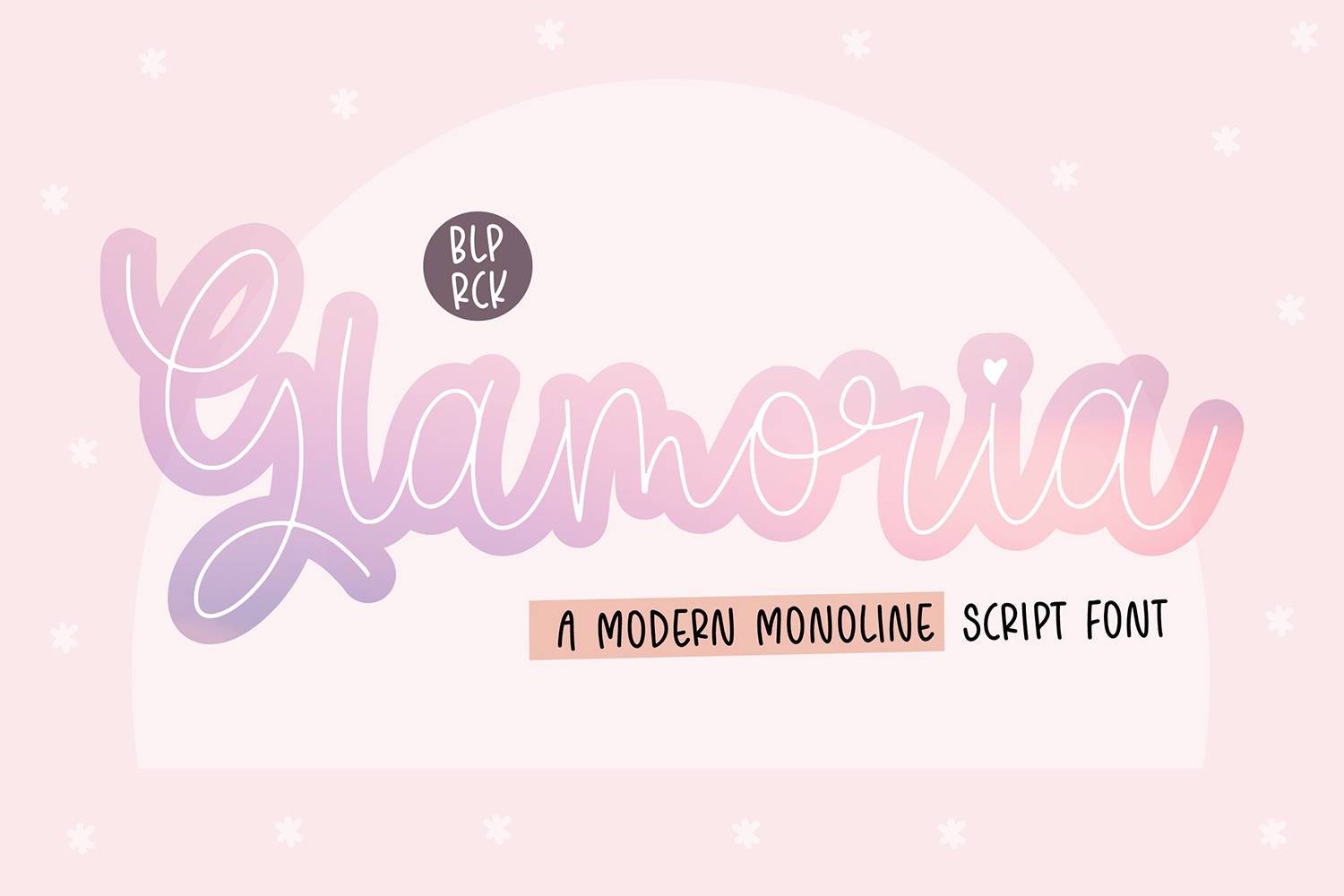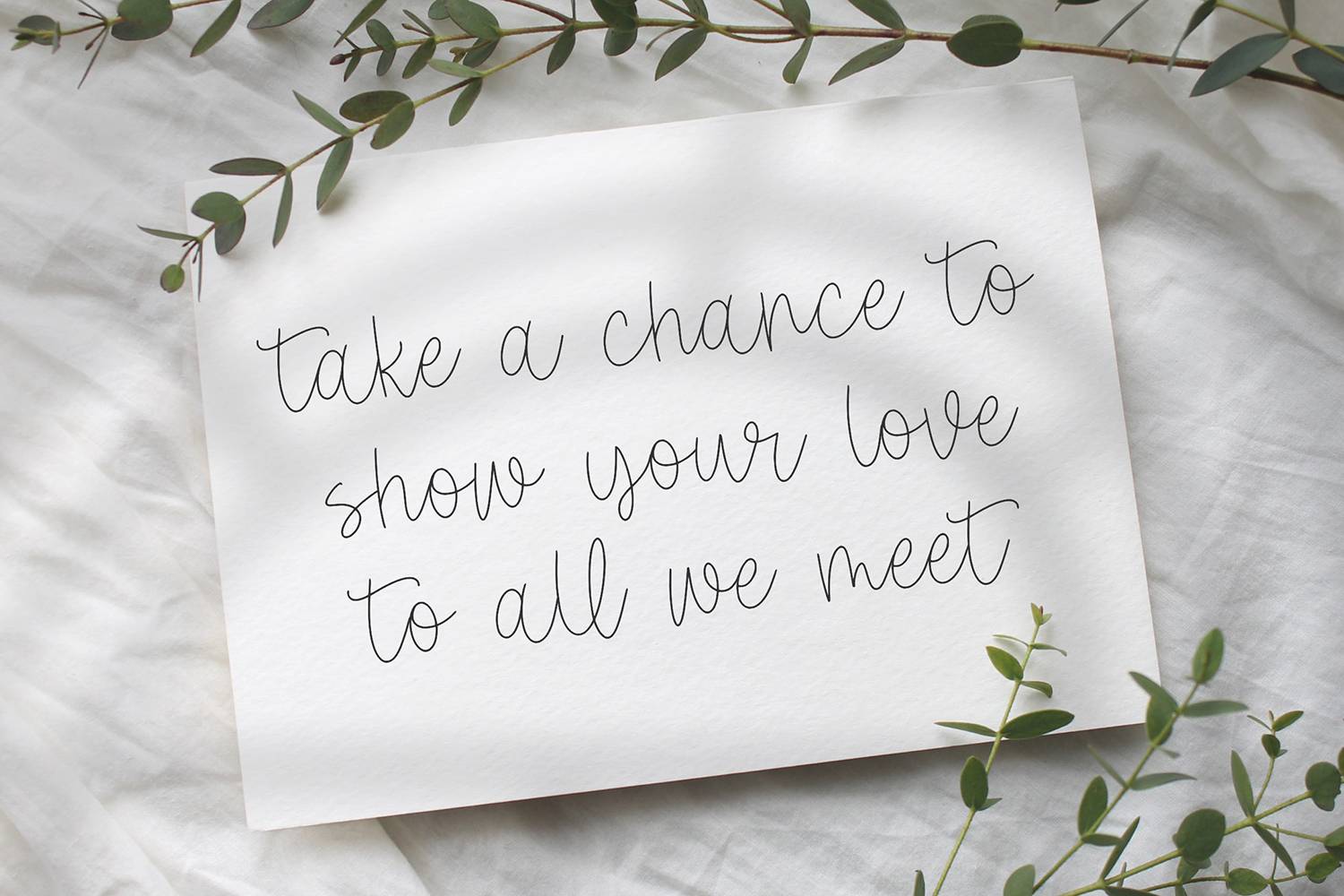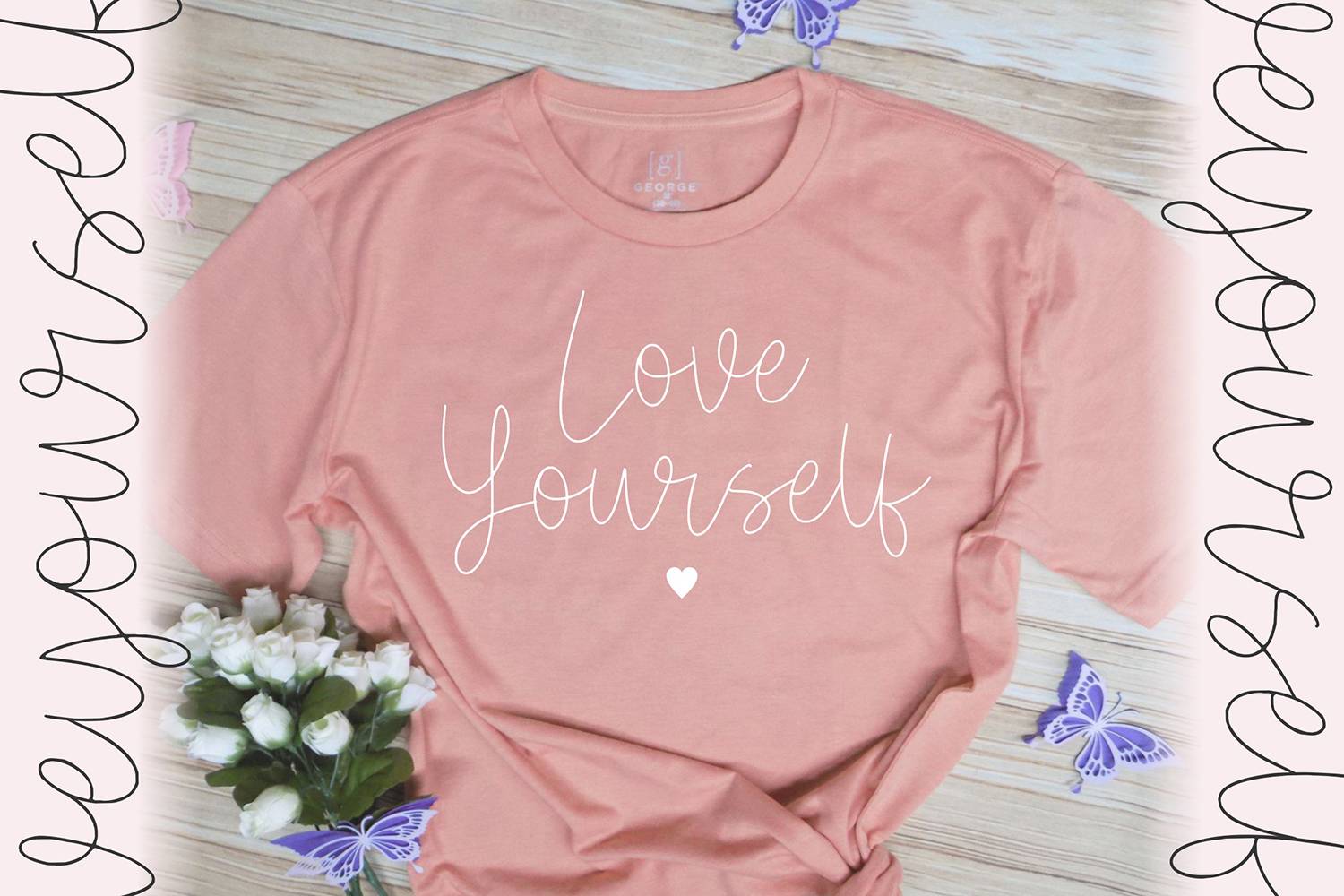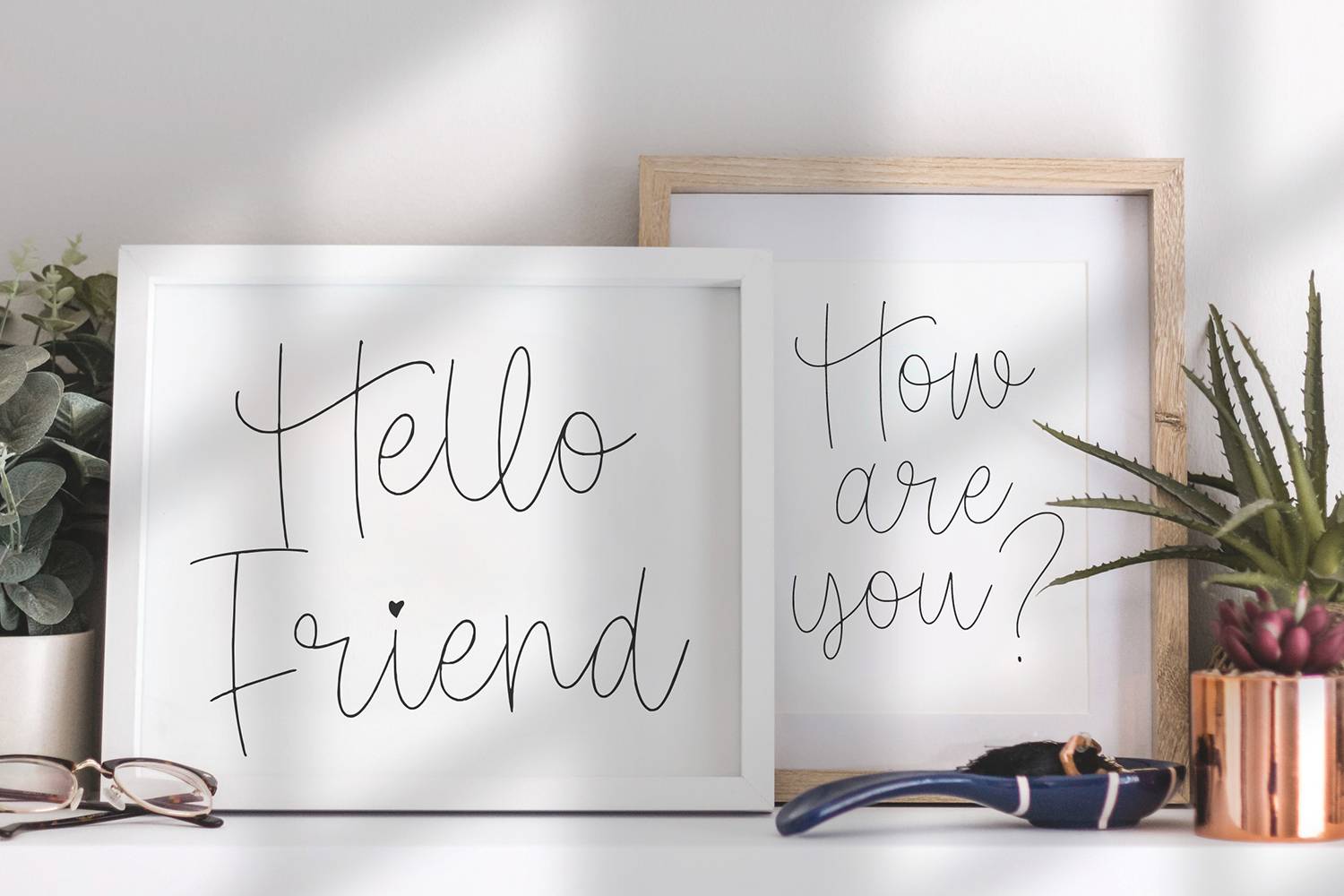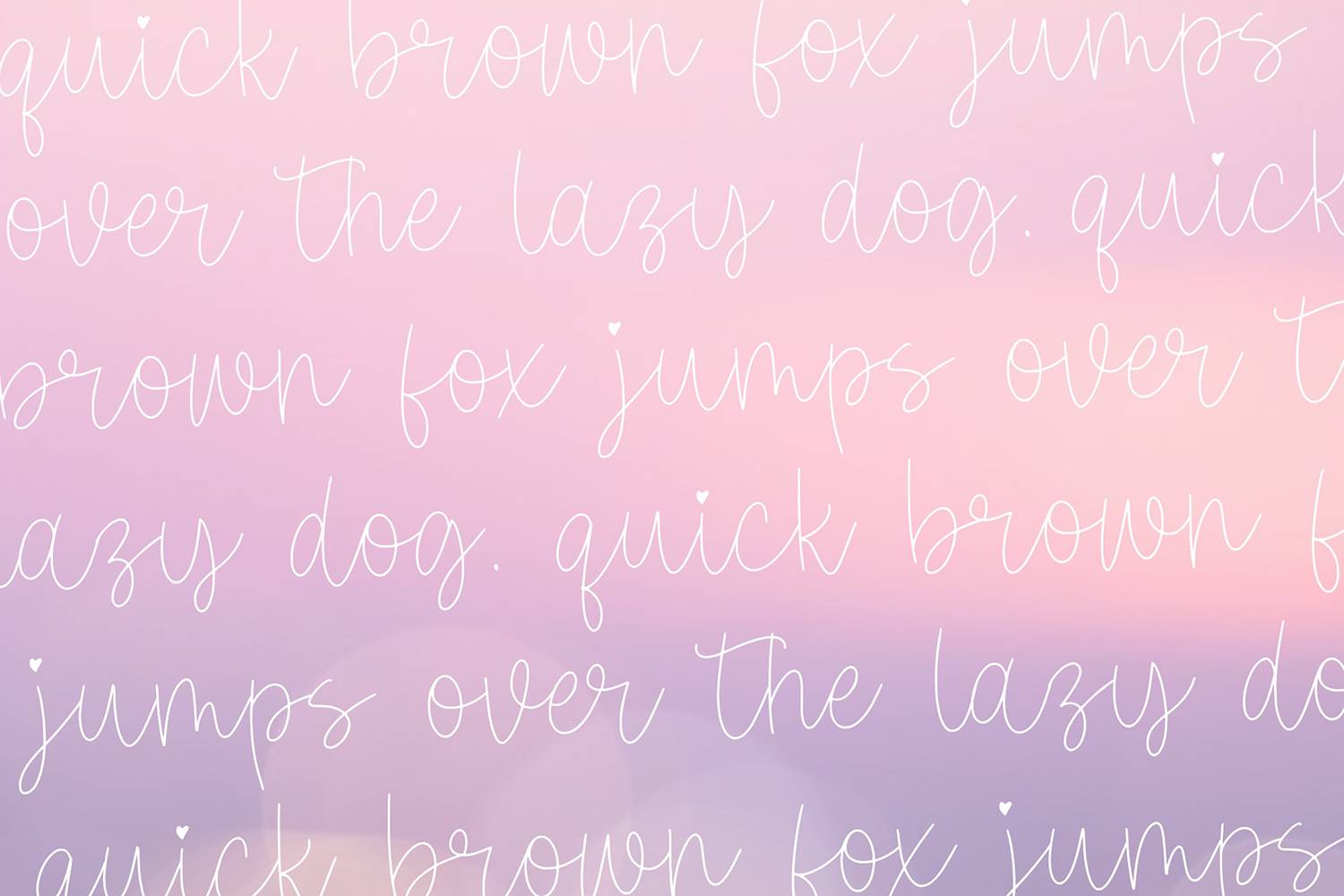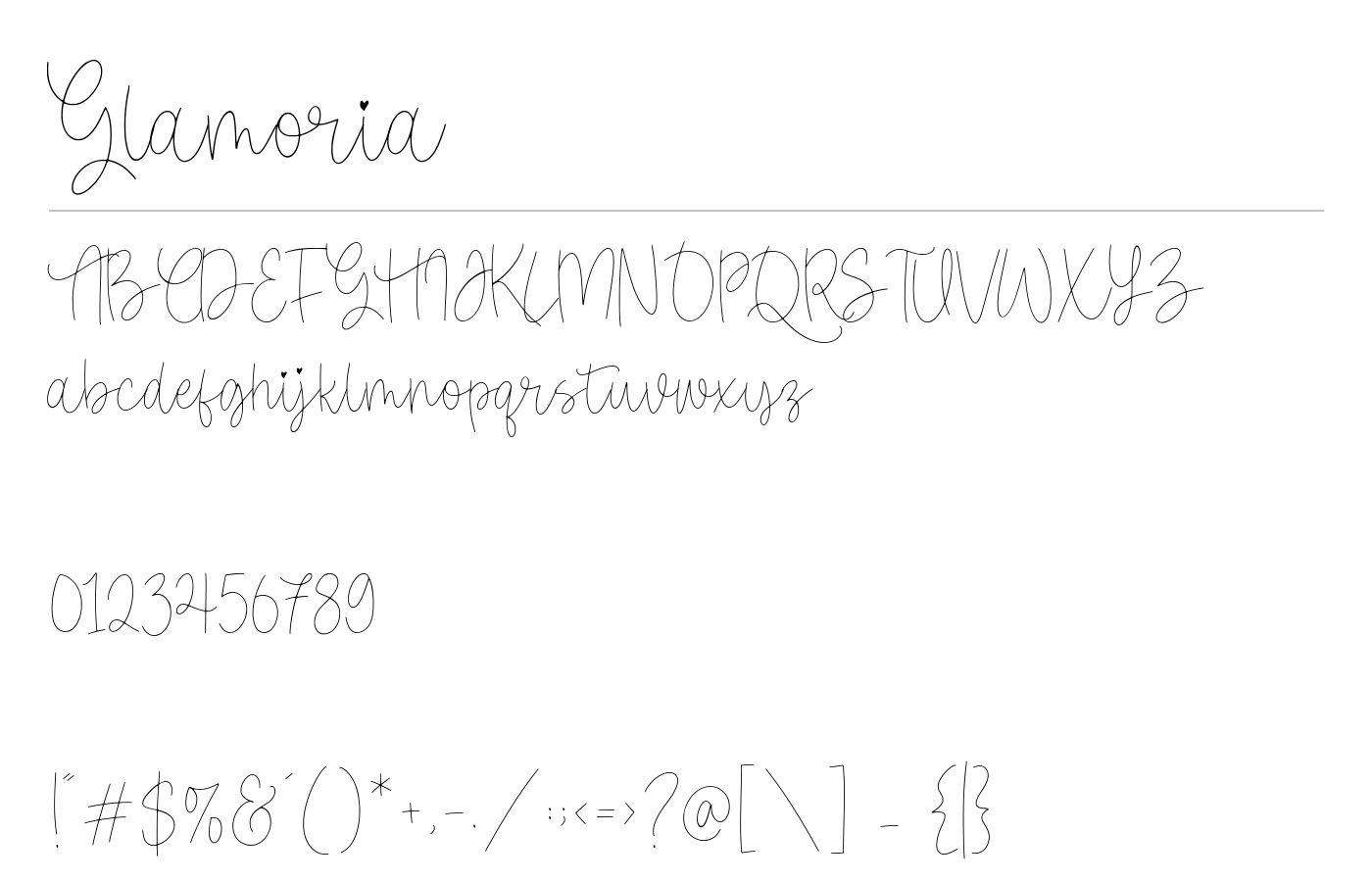
Glamoria is a delicate, thin script font featuring elegant, flowing lines and playful heart-shaped details on select letters. Its light weight and tall, graceful letterforms create a whimsical yet refined look, making it perfect for feminine branding, invitations, and creative designs that need a touch of charm and personality. This font works best in large sizes where its intricate details can shine beautifully.
Glamoria Font
About Glamoria Font